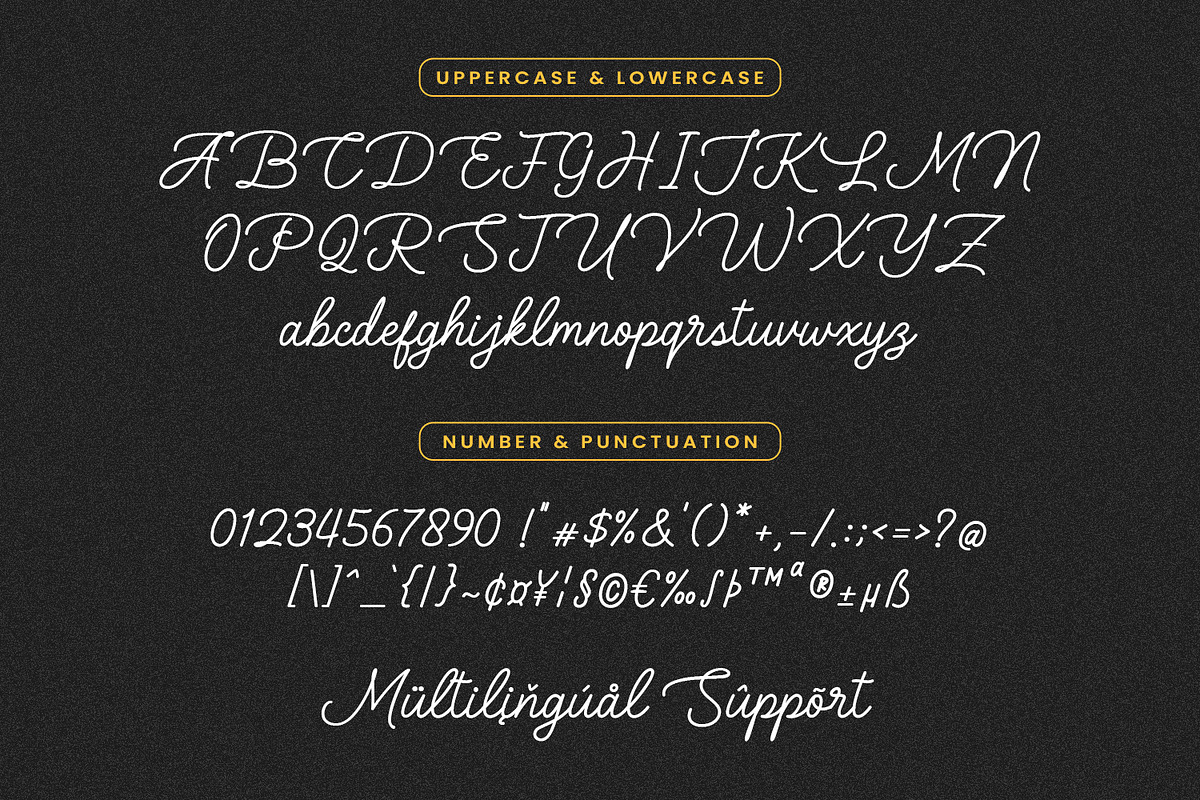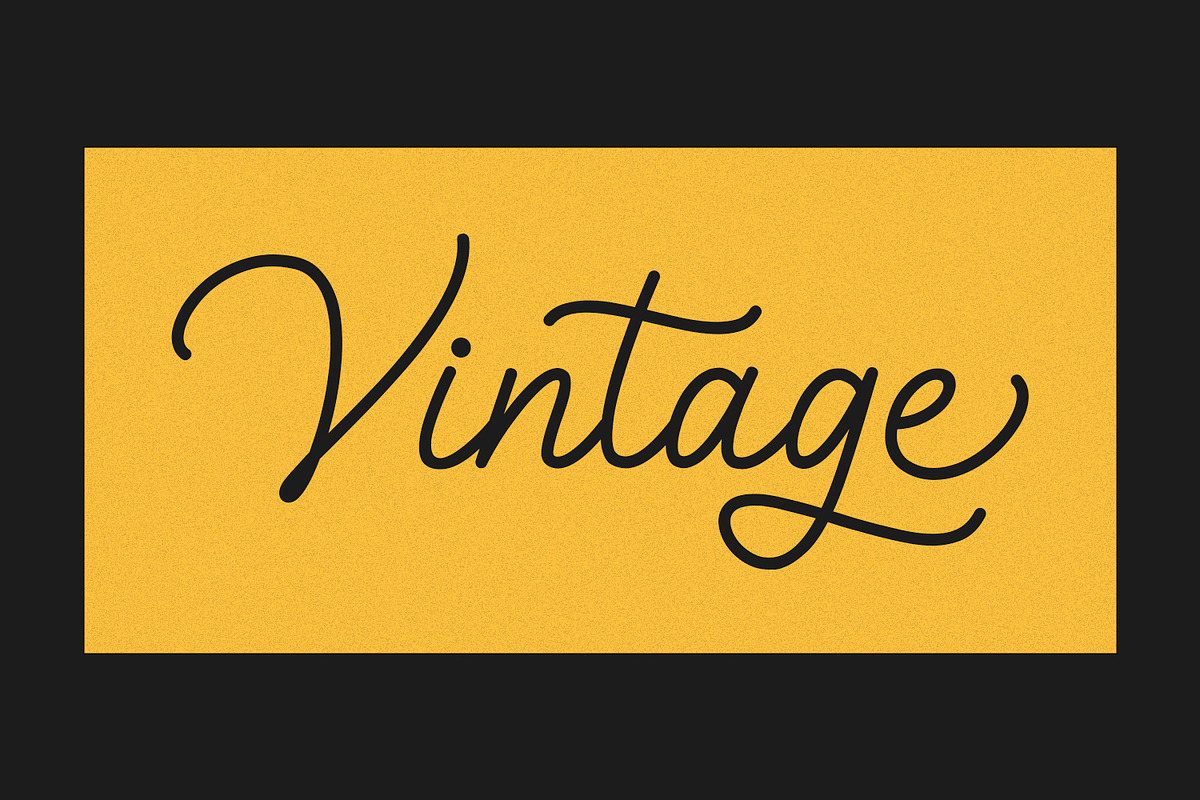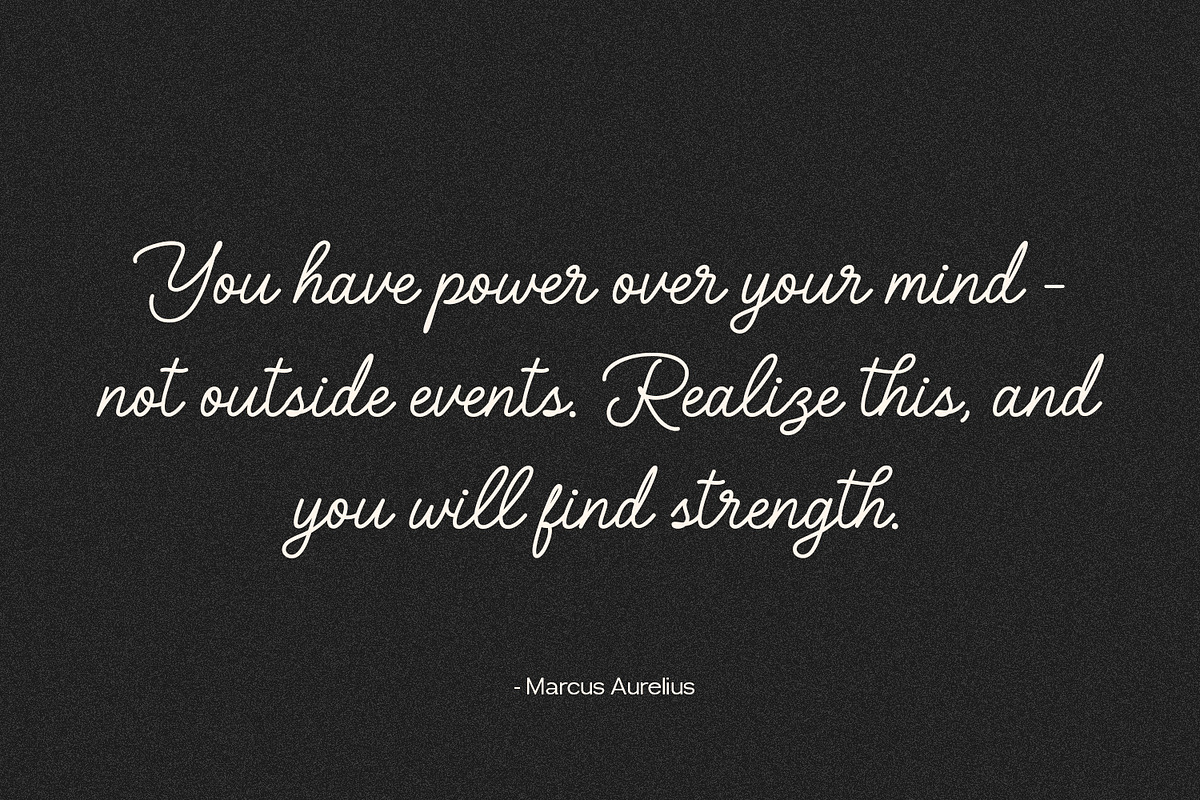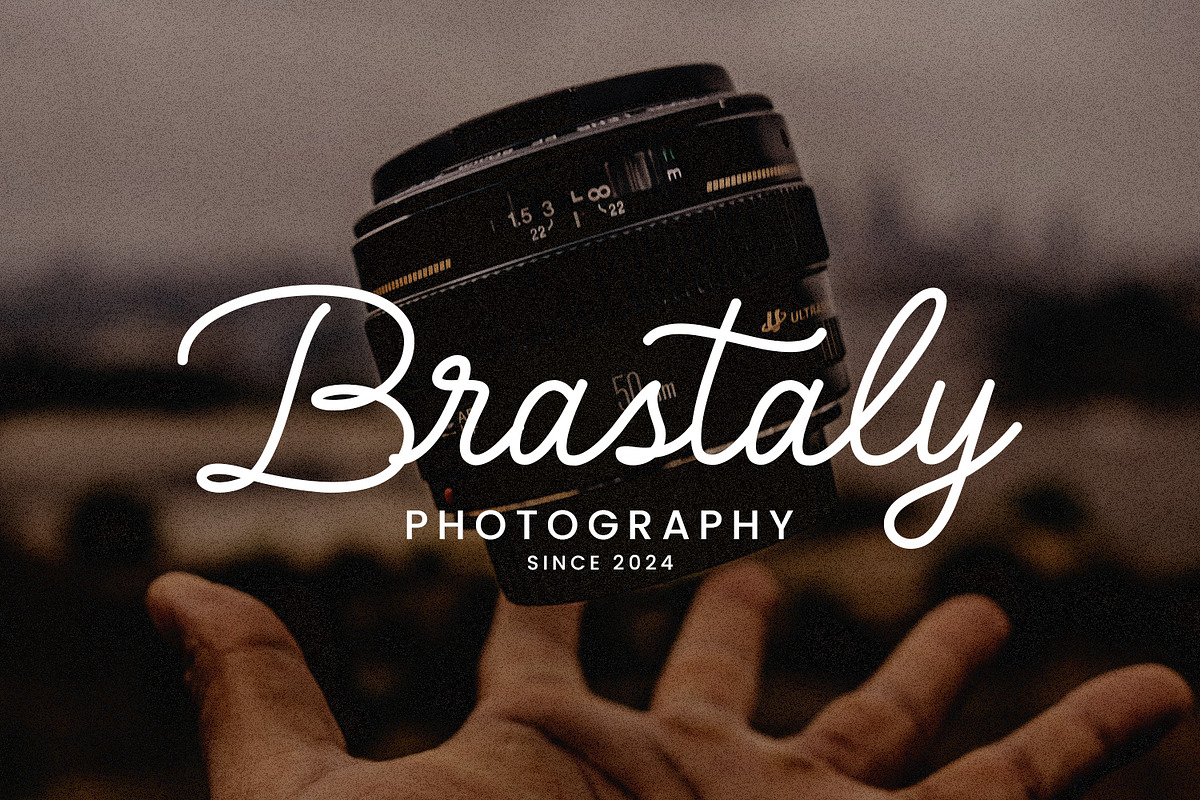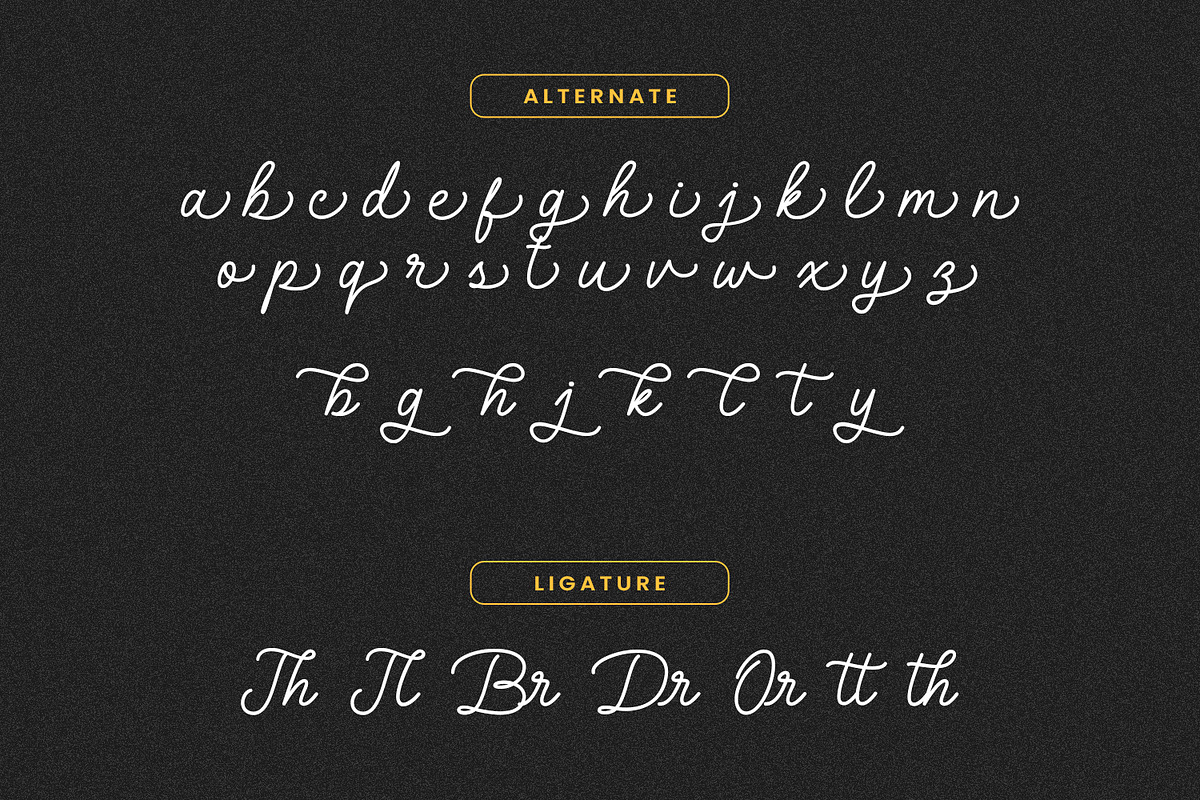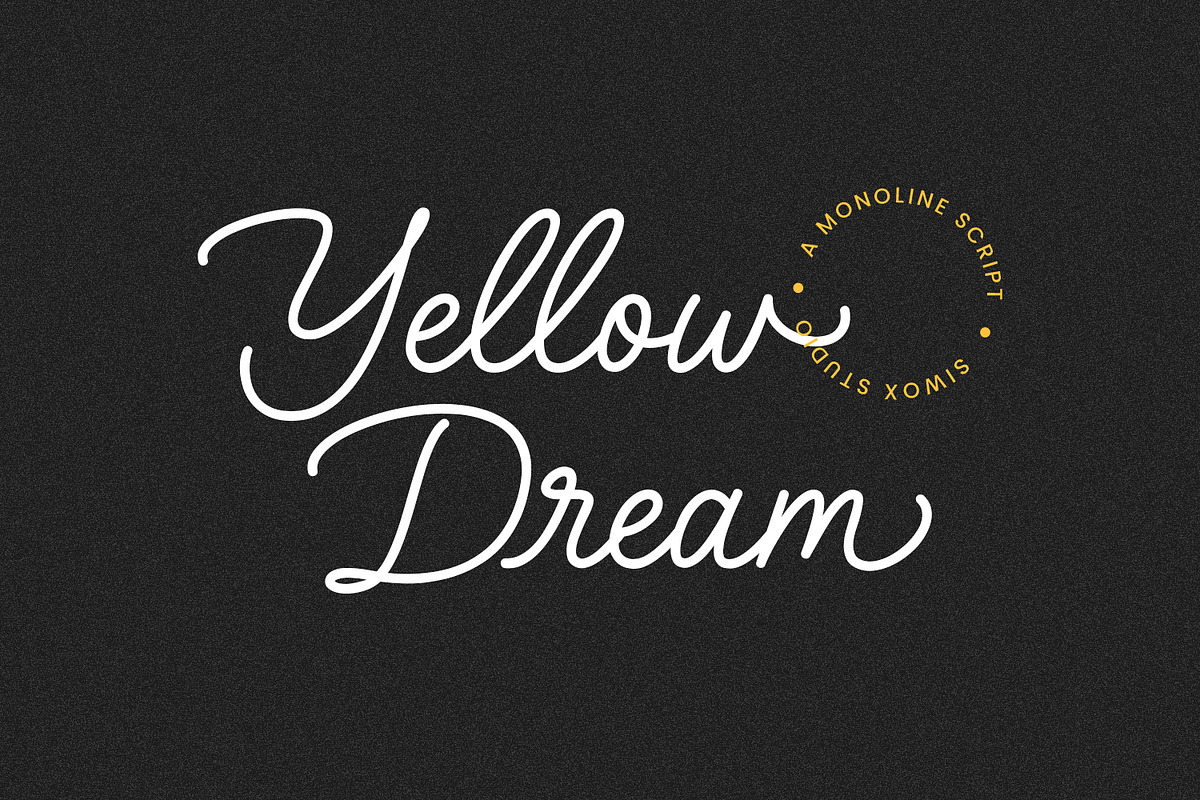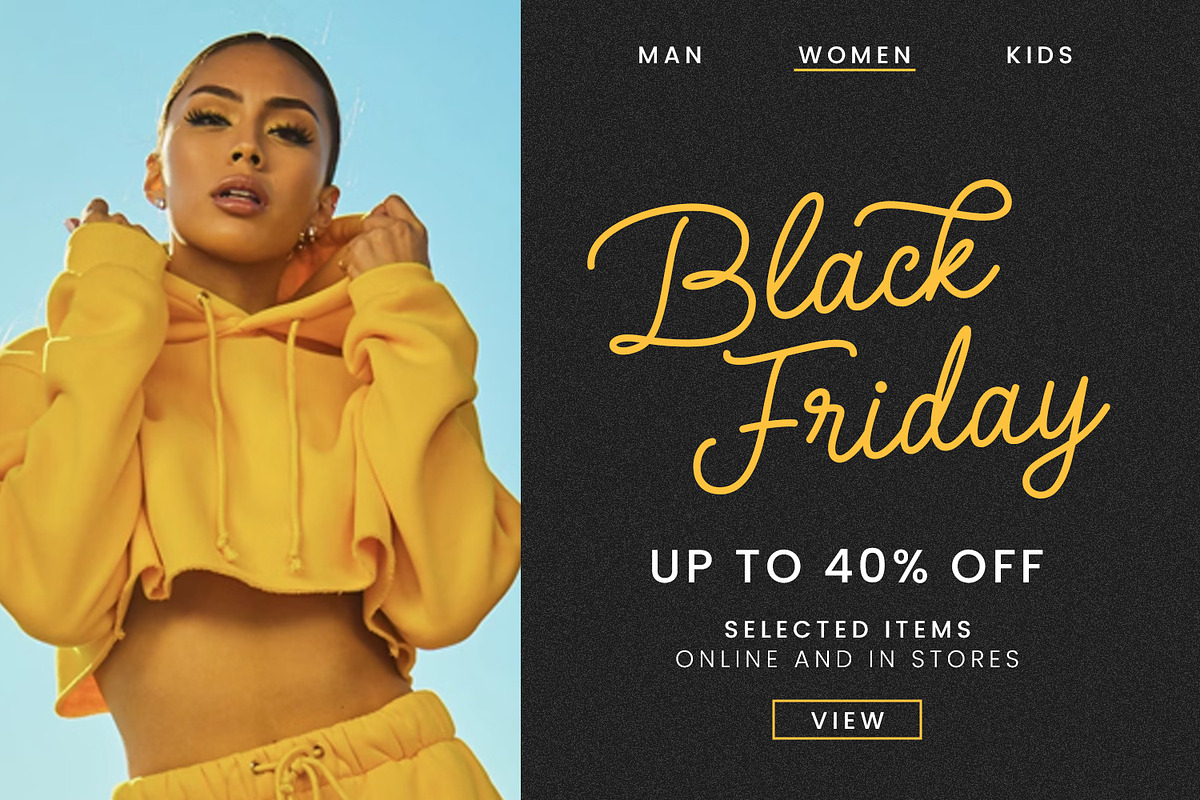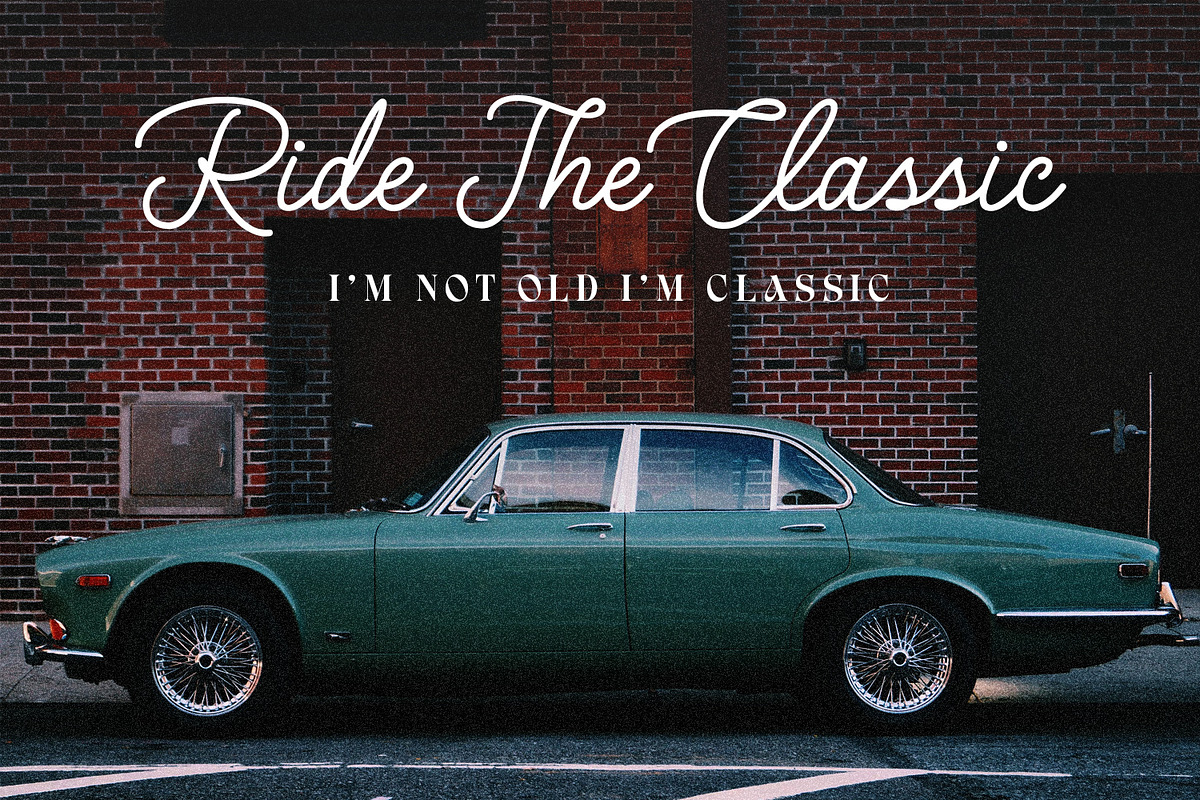
Yellow Dream - a monoline script
Introducing "Yellow Dream", a minimalist monoline font. Specifically designed with thin strokes and rich swirls to accentuate the dramatic side of this font, reaching a wider range of design styles. Leonaley offers a sweet, clean, and elegant visual impression, making it suitable for broader media applications such as weddings, quotes, greeting cards, boutiques, logos, labels, neon signs, and more.